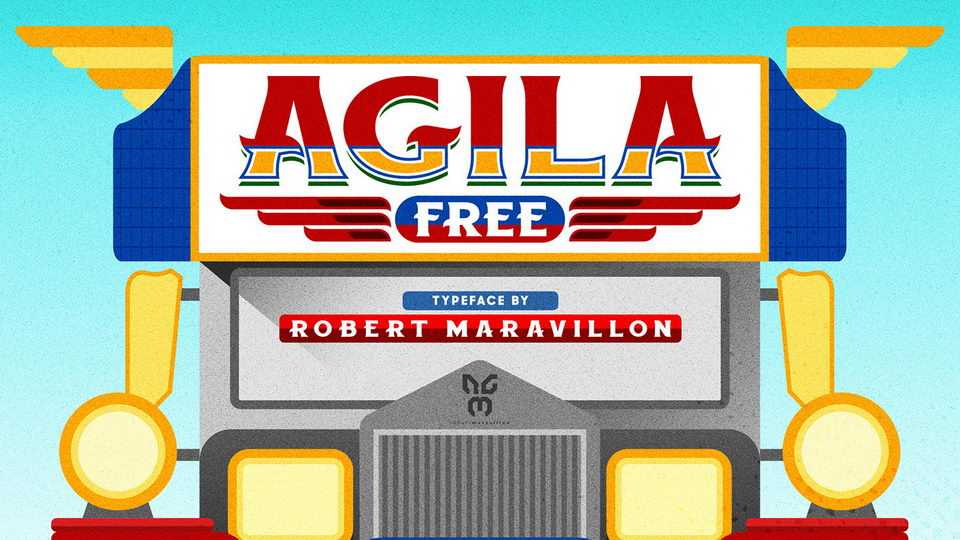
Download Agila typeface, a vintage typeface based on the colorful hand-cut sticker letterings of the Philippine Jeepneys. Commonly seen on jeepney headers, these stickers are one of the prominent visual element of the iconic public ride.
Designer: Robert Genesis Maravillon